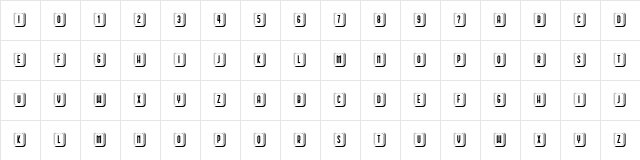
Schwarzenberg Capitals Hollow Regular
Design Context for Schwarzenberg Capitals Hollow Typeface
Schwarzenberg Capitals Hollow takes a measured approach to typography — its balanced proportions and neutral character make it a reliable workhorse for both digital and print work.